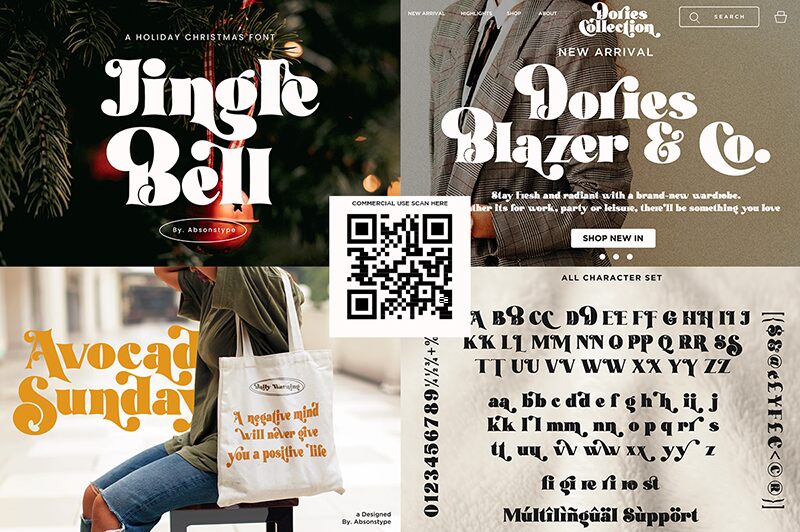
Jingle Bell
Jingle Bell font by Absonstype Studio is a free bold retro display font. Built around juicy, bell-like teardrop terminals and chunky, high-contrast strokes, it sways with a festive swing without slipping into cliché. The letters feel inky and sculpted, with playful curls and tight rhythm that hold together at headline sizes and sparkle on textured backgrounds.
Using Jingle Bell, you can give holiday packaging, party posters, greeting cards, gift tags, social posts, and vintage-style branding a warm, nostalgic pop. The generous forms read best large, where the swashes can breathe. Pair this free font with a simple grotesk sans for subheads and captions to keep the focus on its lively curves.